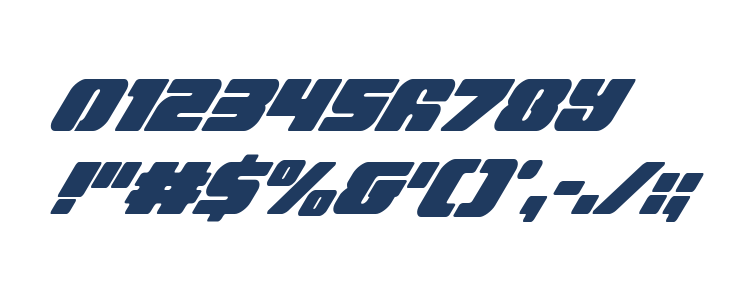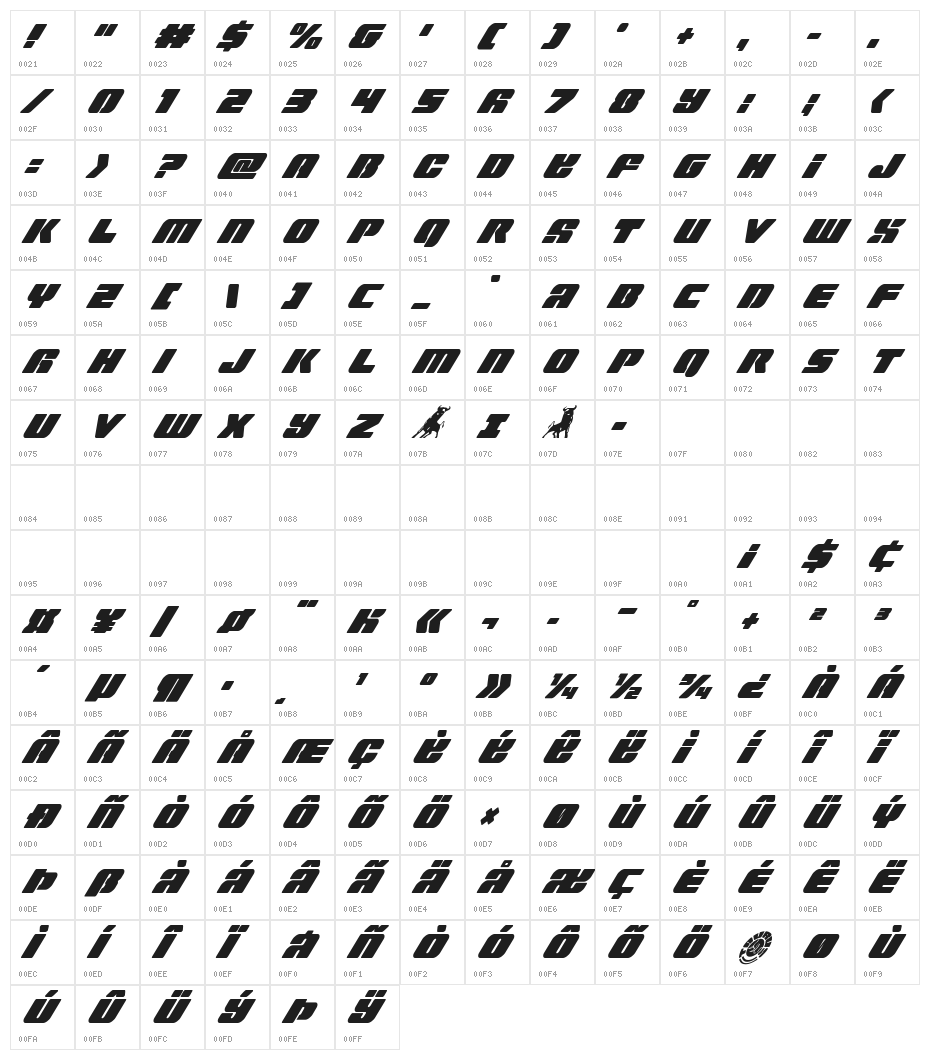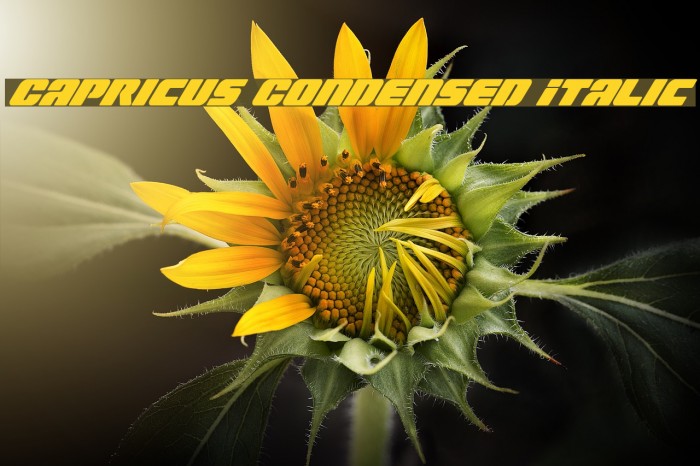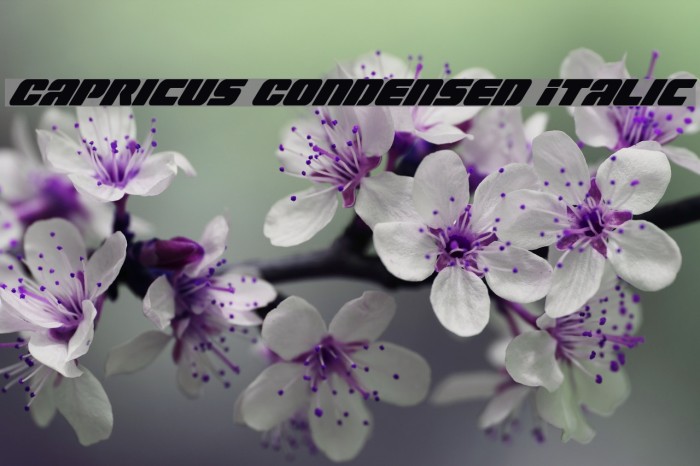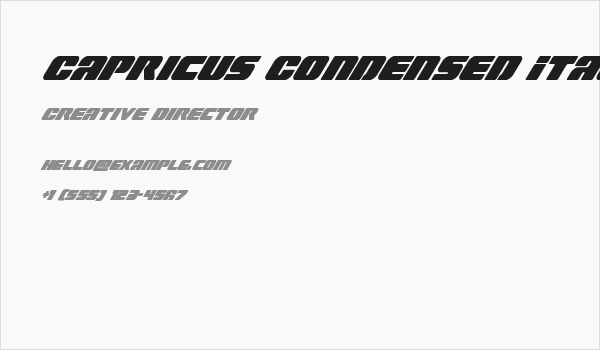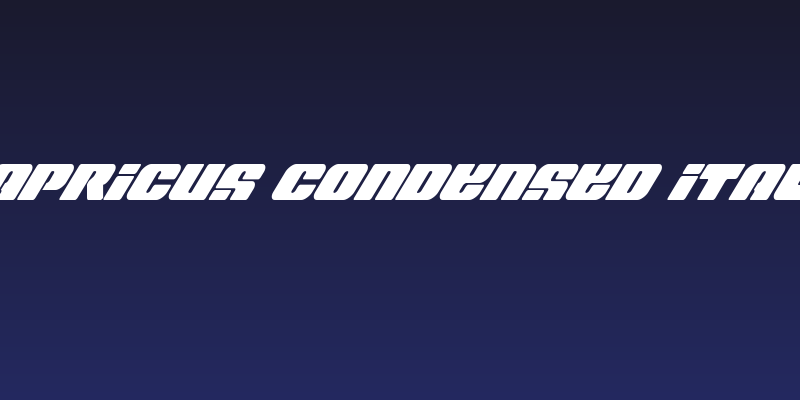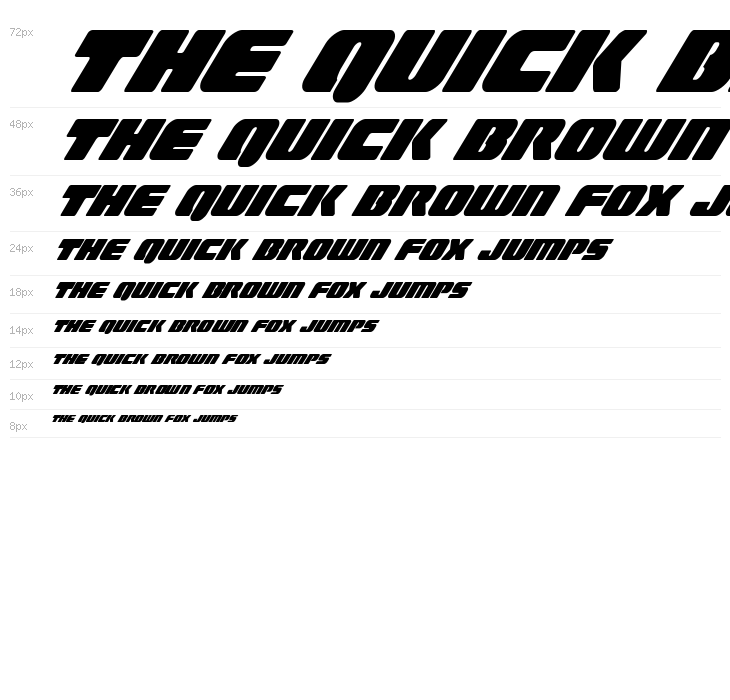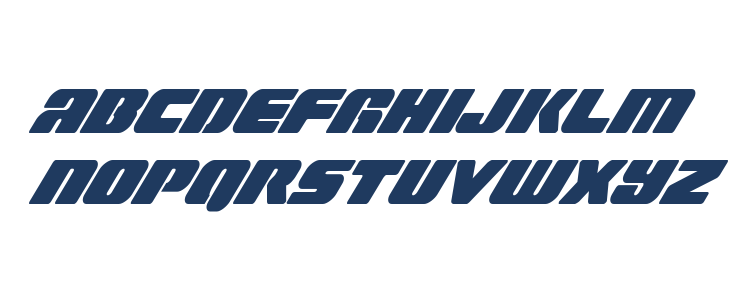
Capricus Condensed Italic Font
Capricus Condensed Italic Description
This font features a bold, italicized style with a condensed width, giving it a strong and dynamic appearance. The characters are designed with sharp angles and a futuristic flair, making them stand out with a sense of motion and energy. The uppercase and lowercase letters maintain a consistent style, with the lowercase mirroring the uppercase in form. The numbers and special characters follow the same design principles, ensuring uniformity across all glyphs. The font's boldness is complemented by its condensed nature, allowing for impactful text in limited space. The italic slant adds a sense of speed and modernity, making it suitable for contemporary designs.
| Proposed Projects | Ideal for sports branding, tech company logos, futuristic posters, and dynamic headlines. |